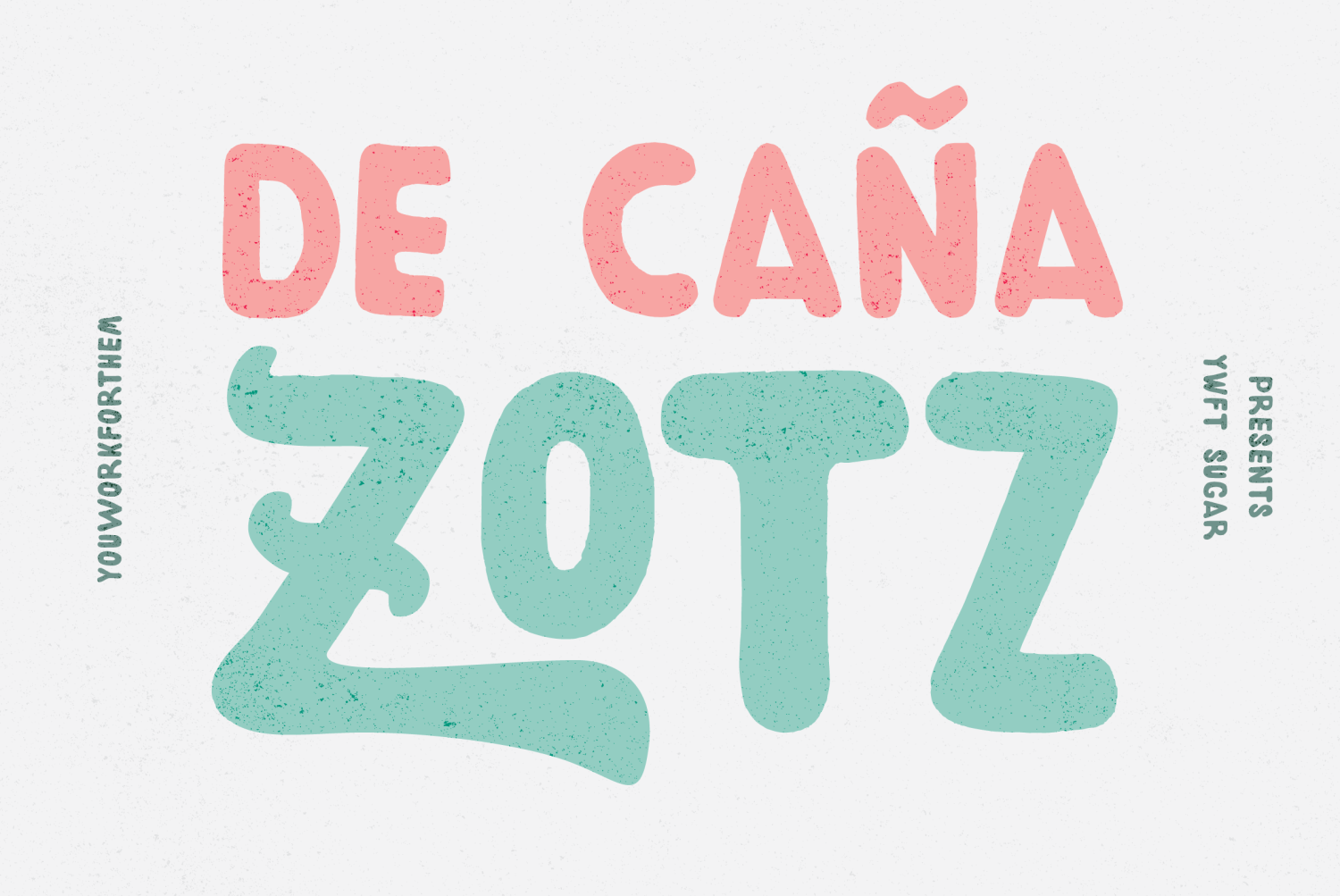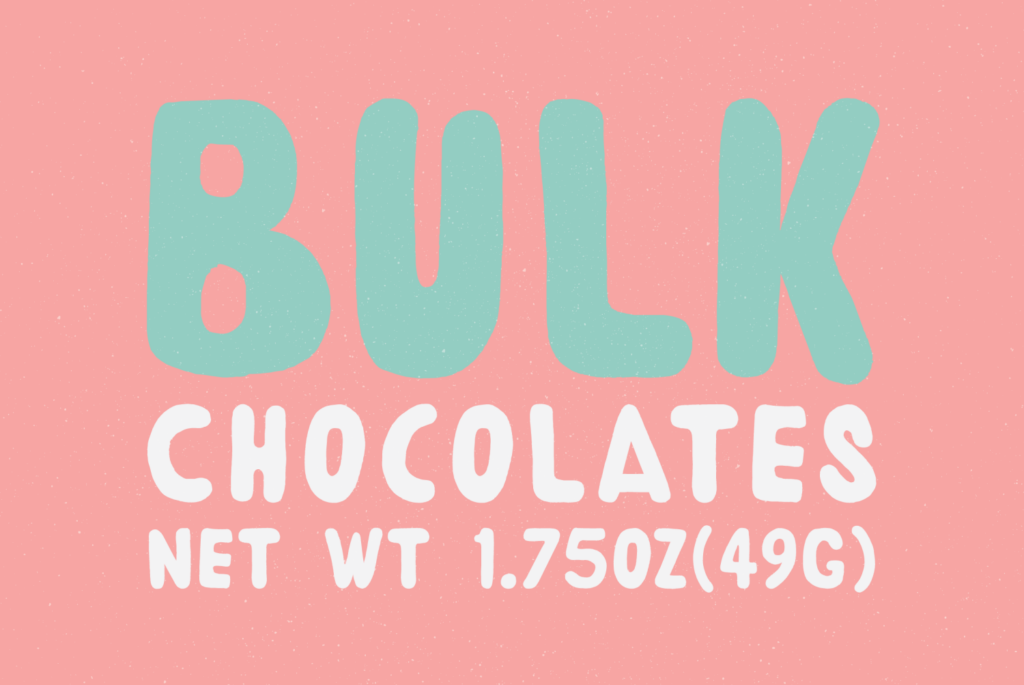
About YWFT Sugar
Like a candy store full of salt water taffy, YWFT Sugar brings the flavor to satisfy the sweetest tooth. Featuring stylistic alternates like swash, contextual alternates and ligatures, this Sugar is just the right combination of silly-in-the-school yard…